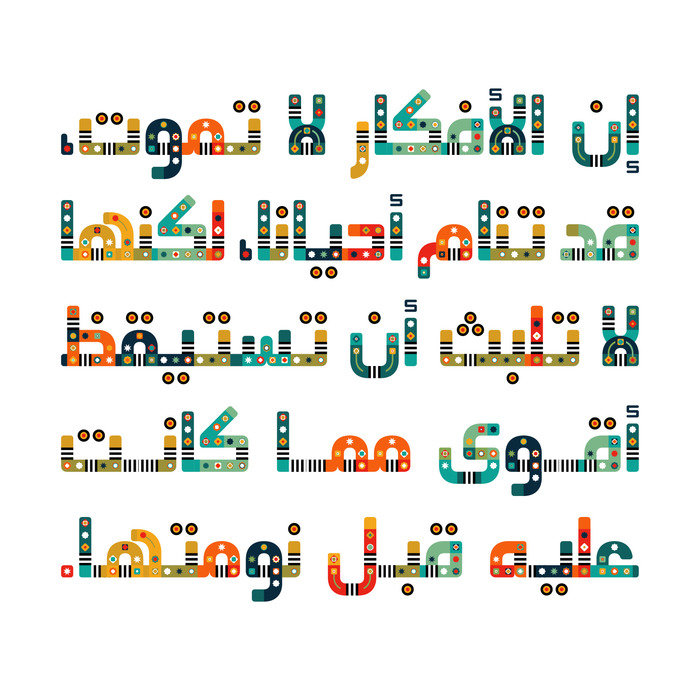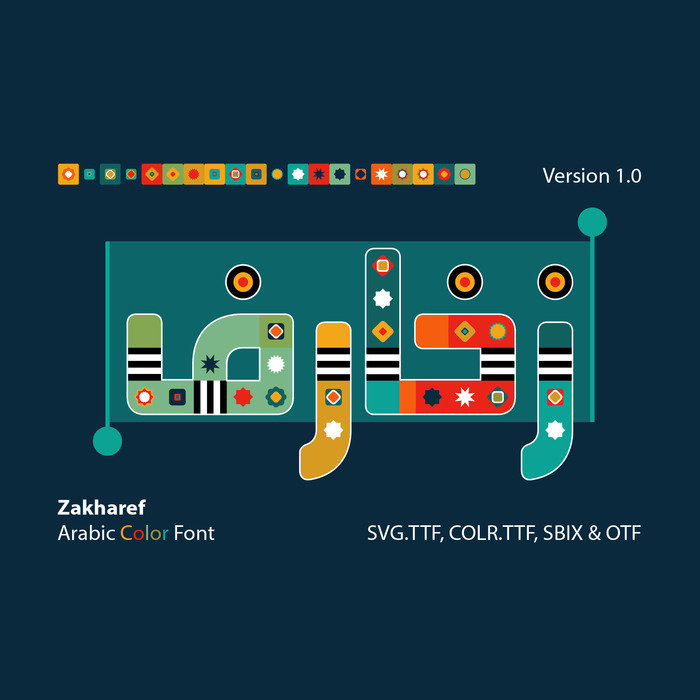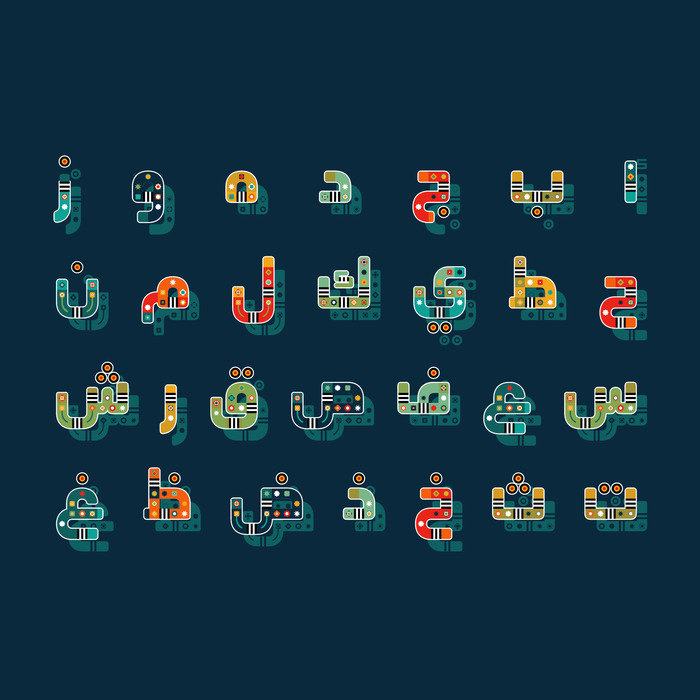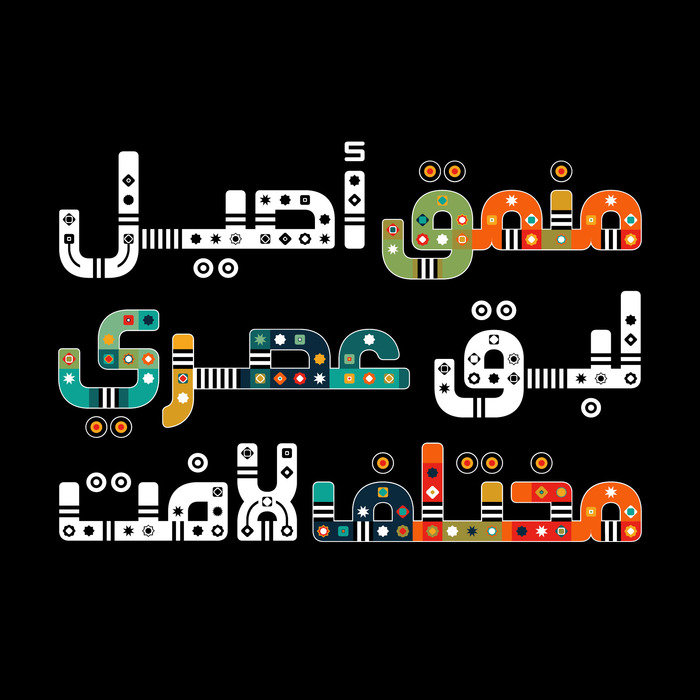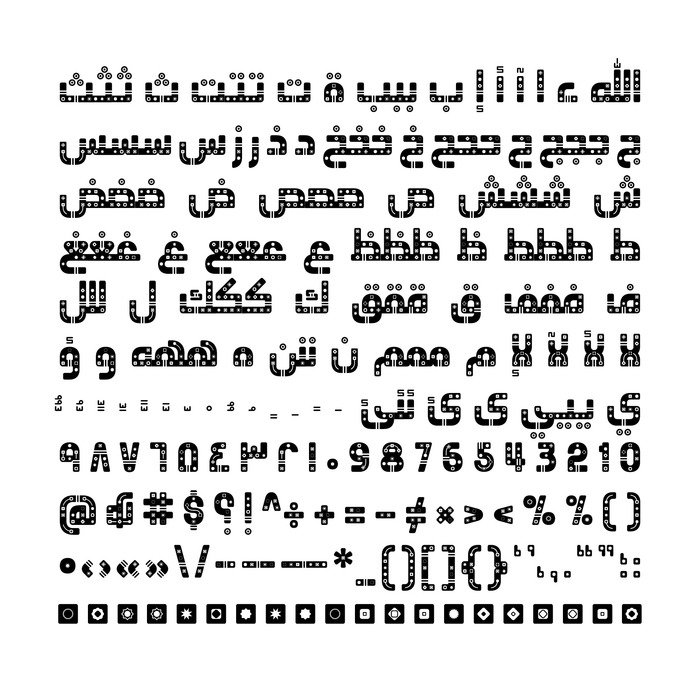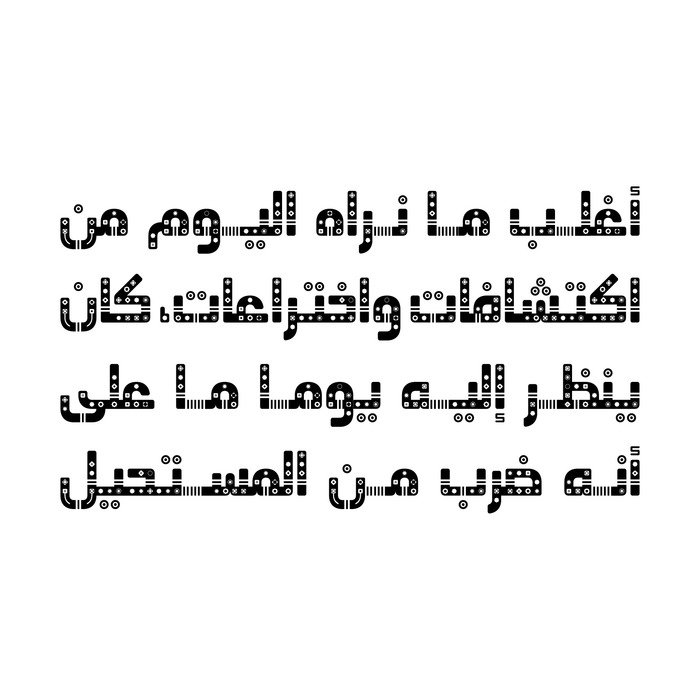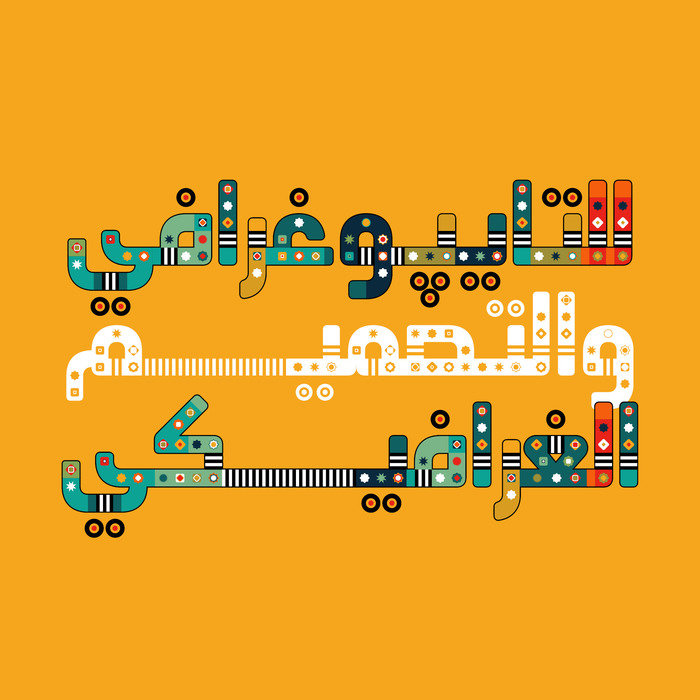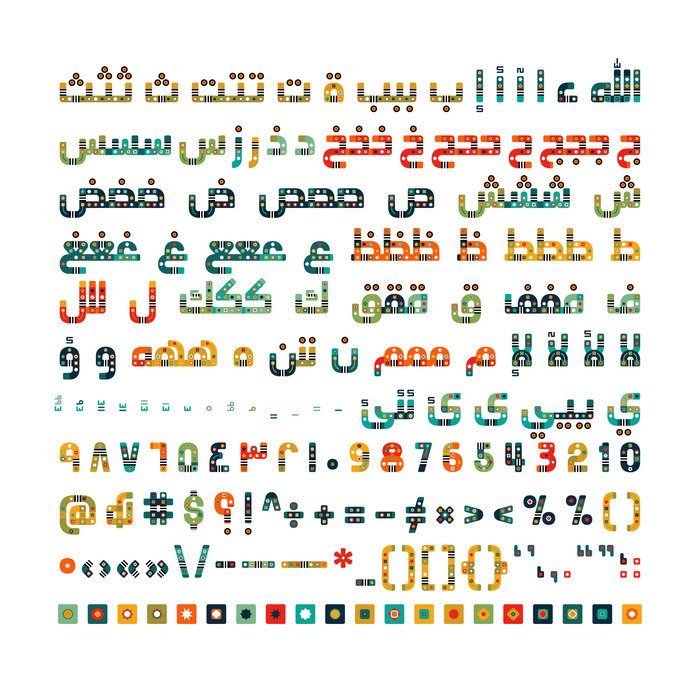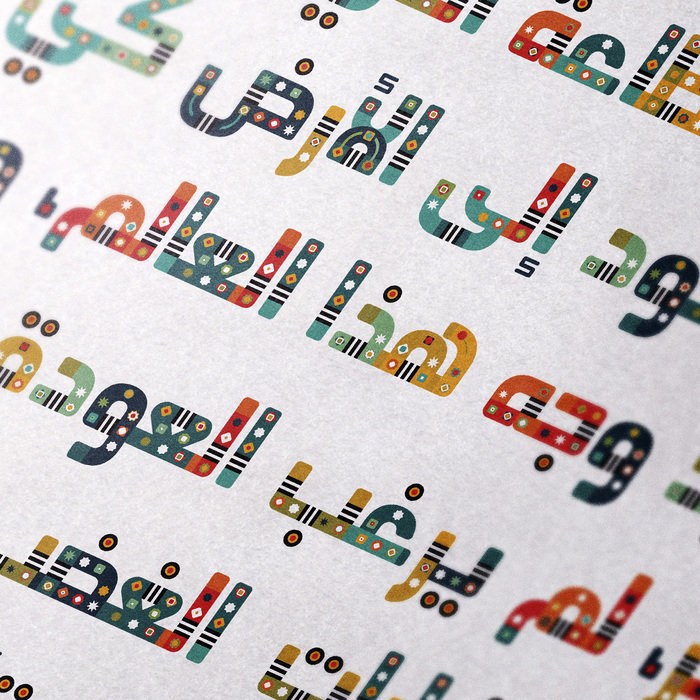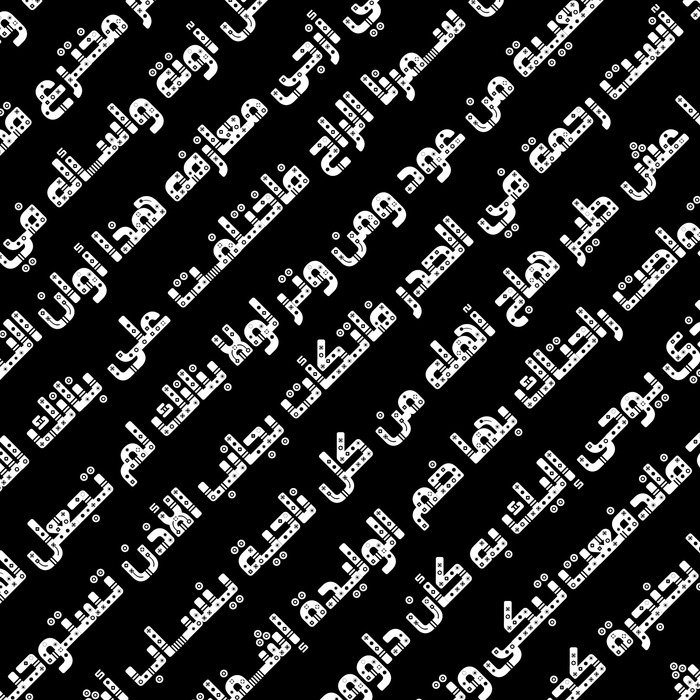
Zakharef - Arabic Color Font
Zakharef (Arabic for "Ornaments") is an Arabic OpenType-SVG font that embodies a vibrant fusion of tradition and creativity. Its design draws inspiration from reimagined decorative elements found throughout nearly all Arabic-speaking cultures. This rich tapestry of letterforms gives the font a truly distinctive character, making it ideal for a wide array of creative projects, including typography, branding, and web or mobile applications.